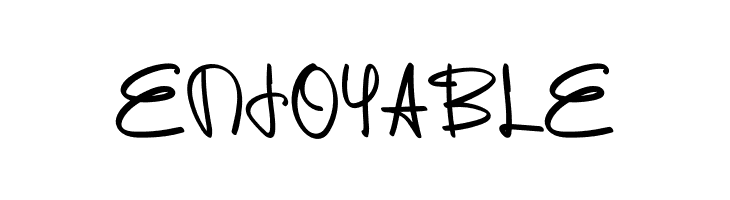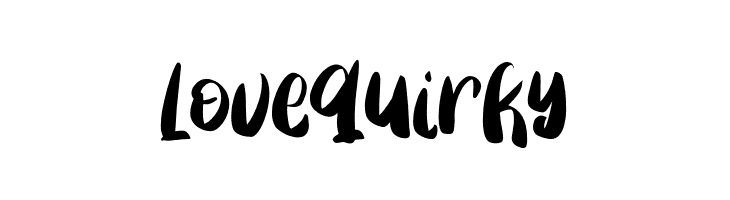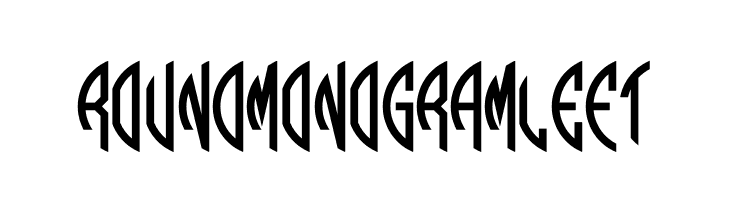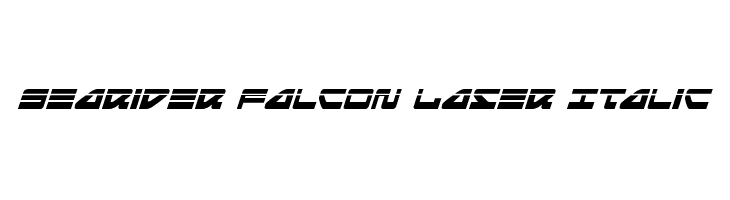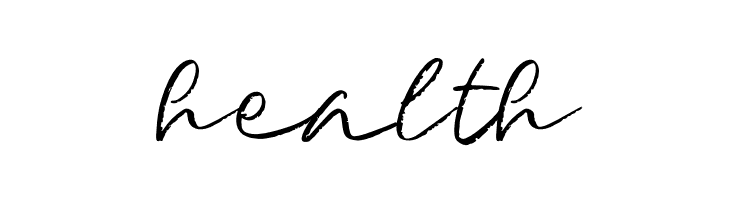
A futuristic, angular font with bold lines and a dynamic slant.
A cursive, handwritten-style font with elegant, flowing letters.
A futuristic, ultra-thin font with sharp angles and geometric design.
A bold, three-dimensional font with a playful, cushion-like texture and retro vibe.
A bold, playful font with brush-like strokes and whimsical curves.
A fluid, cursive script font with a natural handwriting style.
A bold, italic serif font with a unique 'hole' effect for a dynamic and adventurous look.
A festive dingbat font with St. Patrick's Day icons and illustrations.
A playful, casual handwritten font with rounded, irregular letterforms.
A playful, geometric font with bold, rounded characters and dynamic stroke variations.